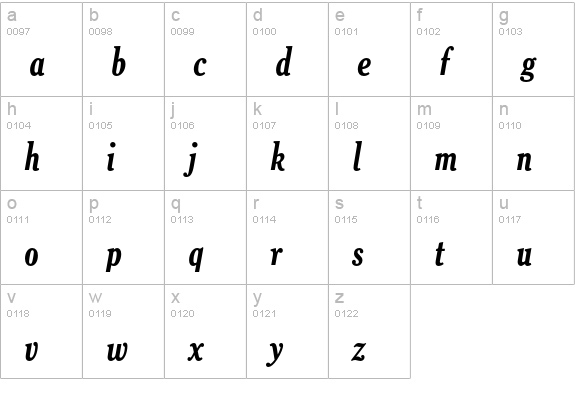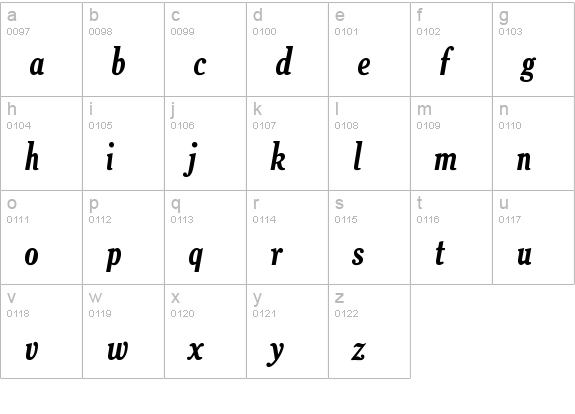
Cheltenham Bold Condensed Italic Font Details
Cheltenham Bold Condensed Italic is a strong, high-contrast, condensed-width, italic variant in the Cheltenham typeface family \xE2\x80\x94 well suited to headlines, attention-grabbing titles, and strong calls-to-action.
Cheltenham Bold Condensed Italic font is a striking and stylish typeface that exudes confidence and sophistication. Its bold and condensed design makes it perfect for headlines, titles, and other display purposes where you want to make a bold statement. The italicized slant adds a touch of elegance and flair, making this font a standout choice for projects that require a strong and impactful aesthetic. What sets Cheltenham Bold Condensed Italic font apart is not only its bold design but also the versatility it offers. Whether you're creating posters, flyers, logos, or branding materials, this font will ensure your message is delivered with maximum impact. And the best part? Cheltenham Bold Condensed Italic font is available for free download at FontsMarket.com. So, you can elevate your design projects without any added cost. Don't miss out on this opportunity to add a touch of bold sophistication to your creations with Cheltenham Bold Condensed Italic font.